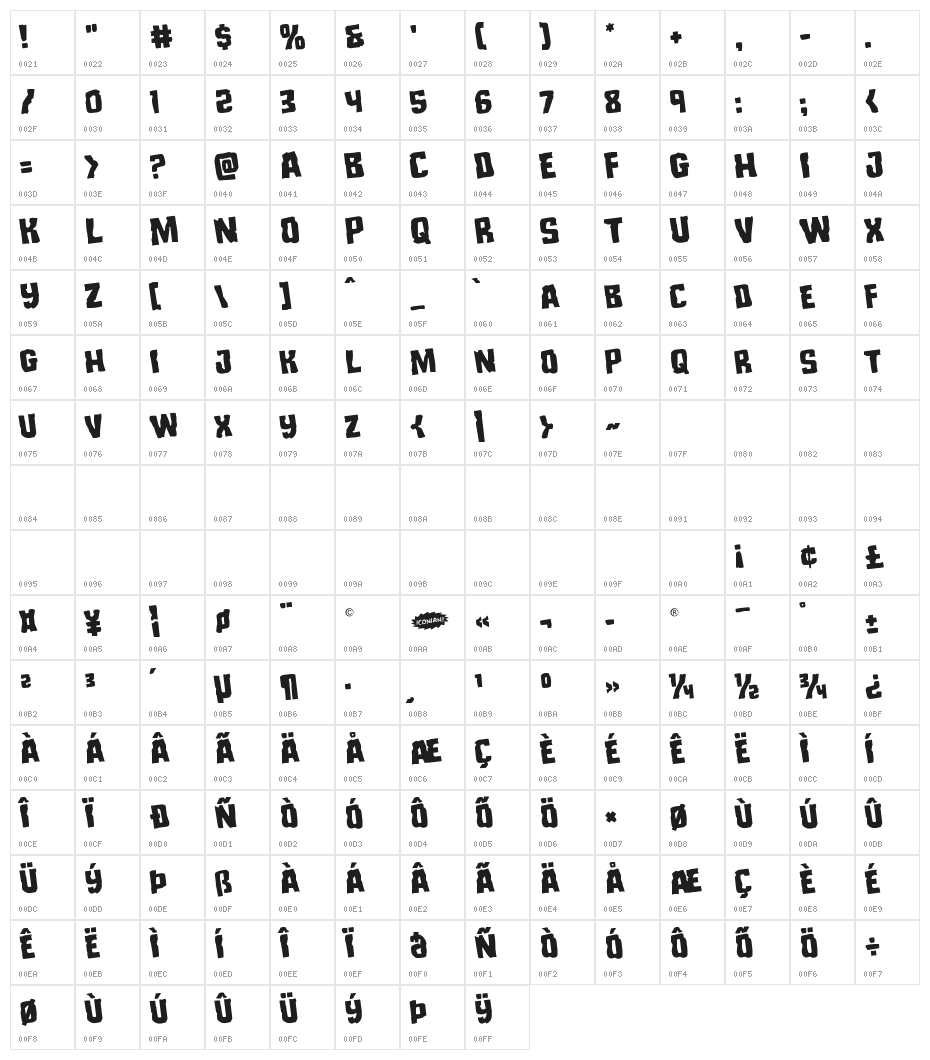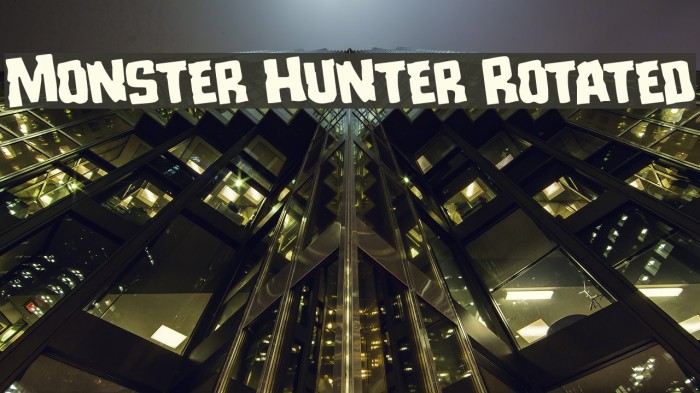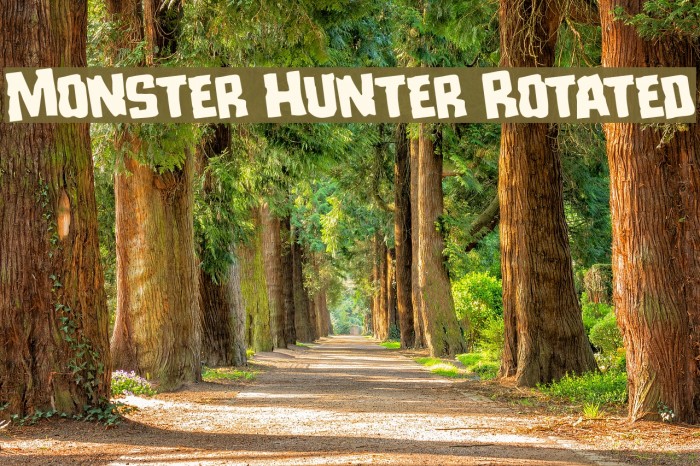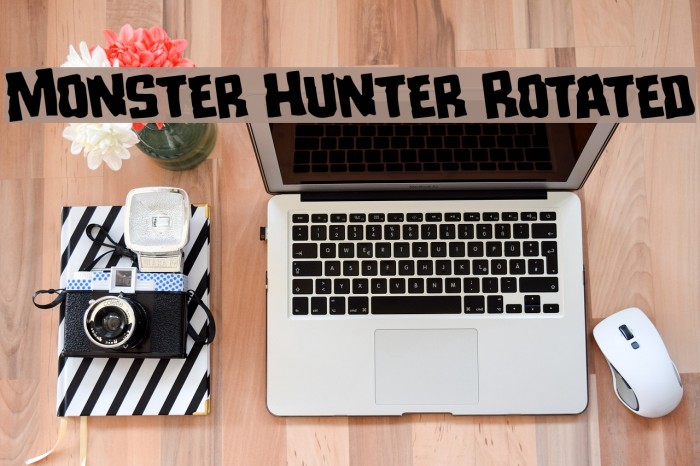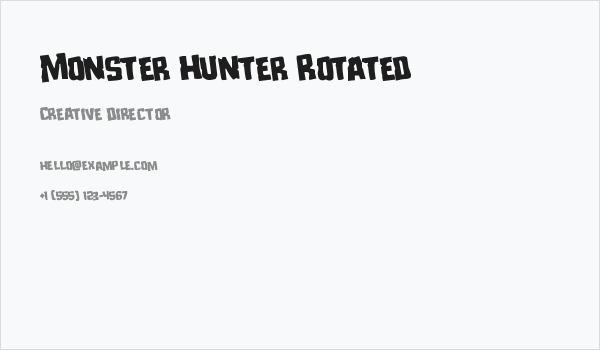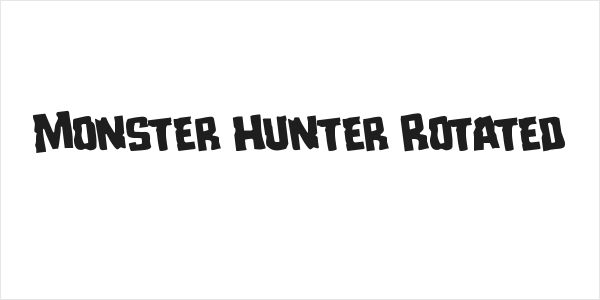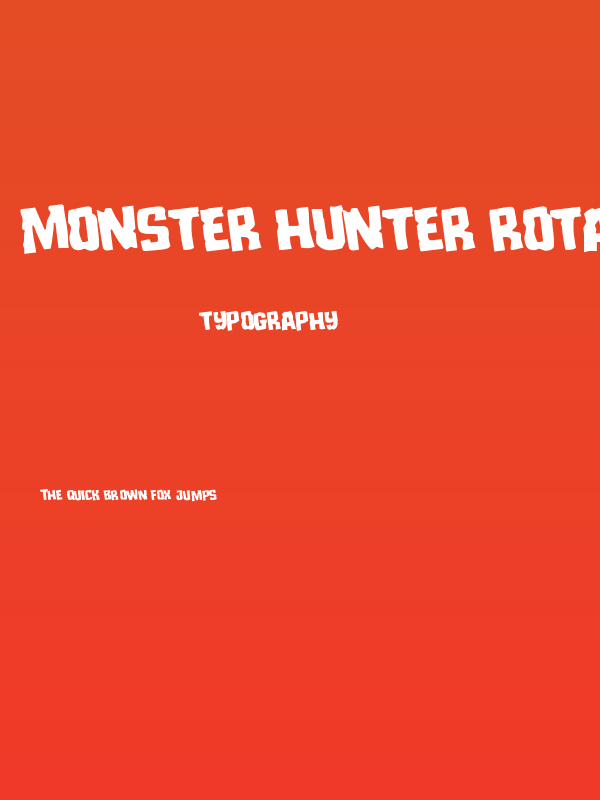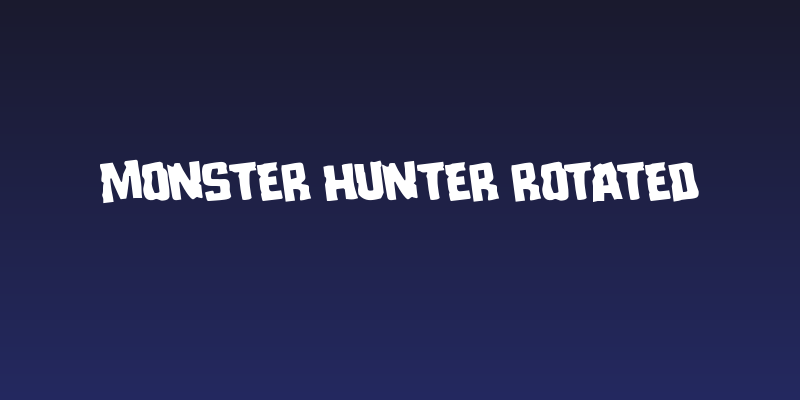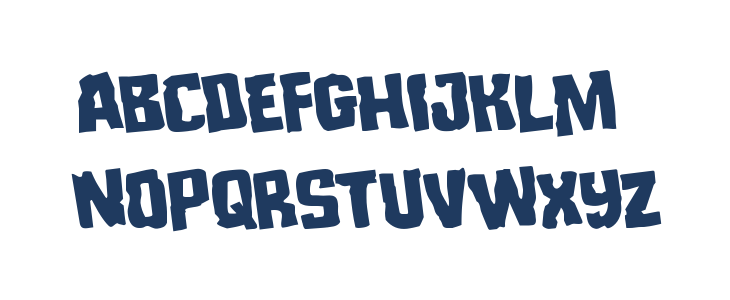
Monster Hunter Rotated Font
Monster Hunter Rotated Description
This font features a bold and rugged design, characterized by its thick, uneven strokes and slightly jagged edges. The letters have a hand-drawn, organic feel, giving them a dynamic and energetic appearance. The uppercase and lowercase letters maintain a consistent style, with a playful yet aggressive tone. The numbers and special characters follow the same aesthetic, ensuring a cohesive look across all text elements. This font is ideal for projects that require a strong, impactful presence, such as posters, video game titles, or branding for edgy or adventurous themes.
| Proposed Projects | Ideal for video game titles, posters, branding for adventurous themes, and any project needing a strong, impactful presence. |